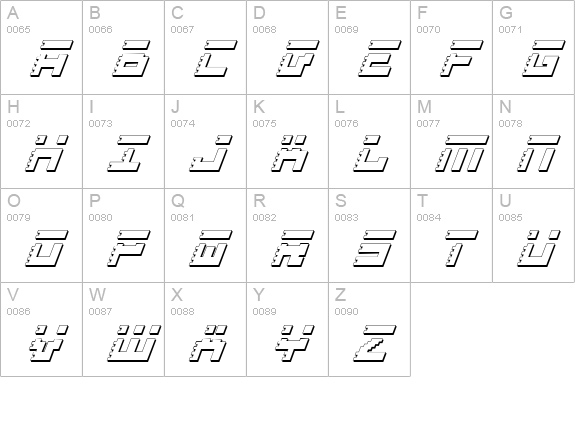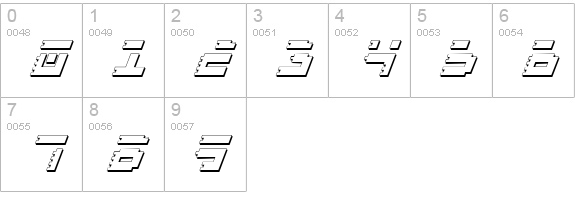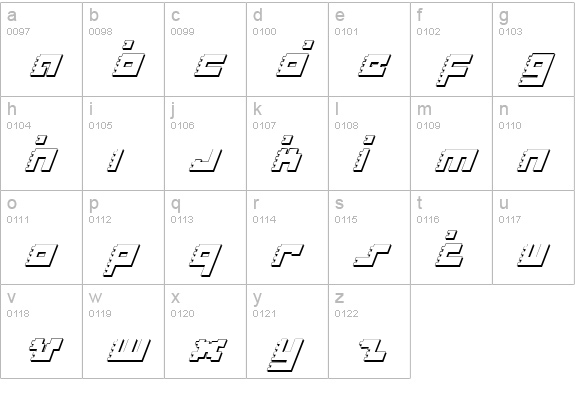
Roid Rage Shadow Italic is a distinctive, italic variant in the Roid typeface family \xE2\x80\x94 well suited to design and typography projects.
Roid Rage Shadow Italic font is a bold and dynamic typeface that exudes strength and power. Its sharp angles and exaggerated strokes create a sense of intensity, making it perfect for conveying a sense of urgency or excitement in your designs. This font is ideal for headlines, posters, and branding projects where you want to make a bold statement. The Roid Rage Shadow Italic font is available for free download at FontsMarket.com, making it easily accessible for designers and creatives looking to add a touch of drama to their work. Whether you're working on a high-energy sports campaign or a gritty urban art project, this font is sure to make a bold impact. Download Roid Rage Shadow Italic today and unleash its powerful presence in your designs.